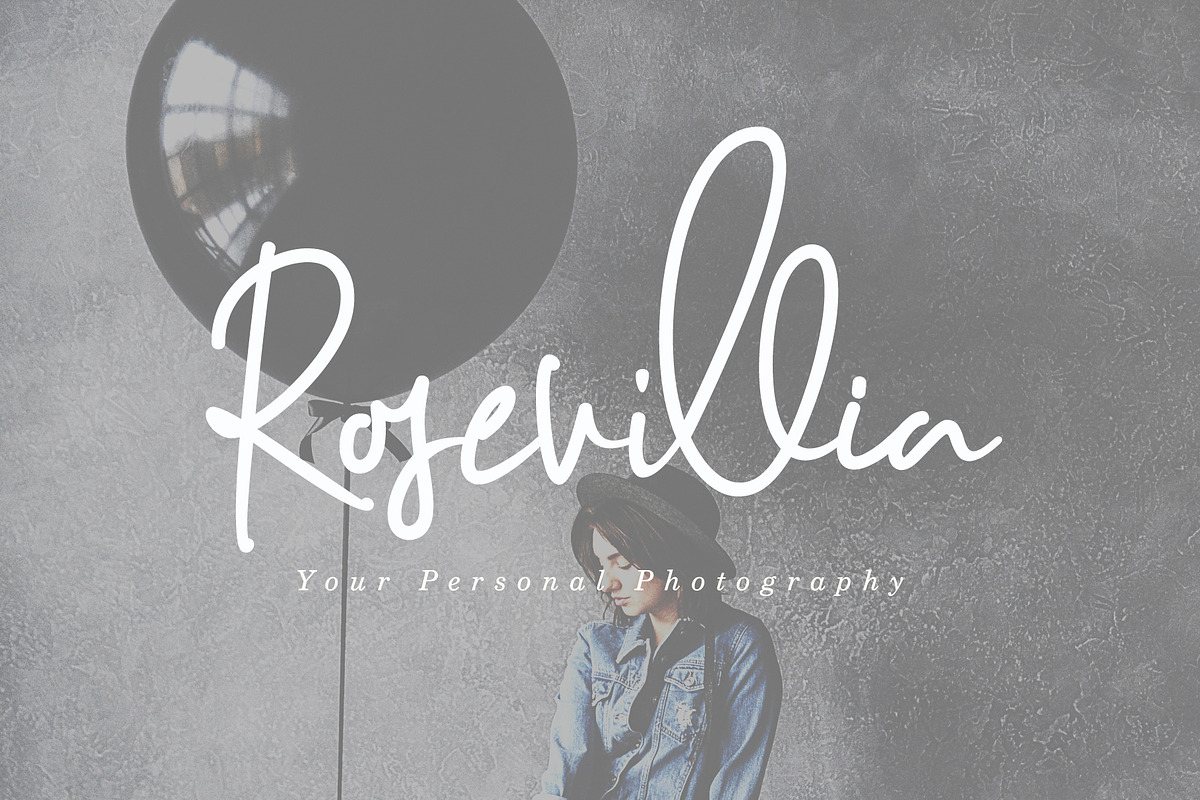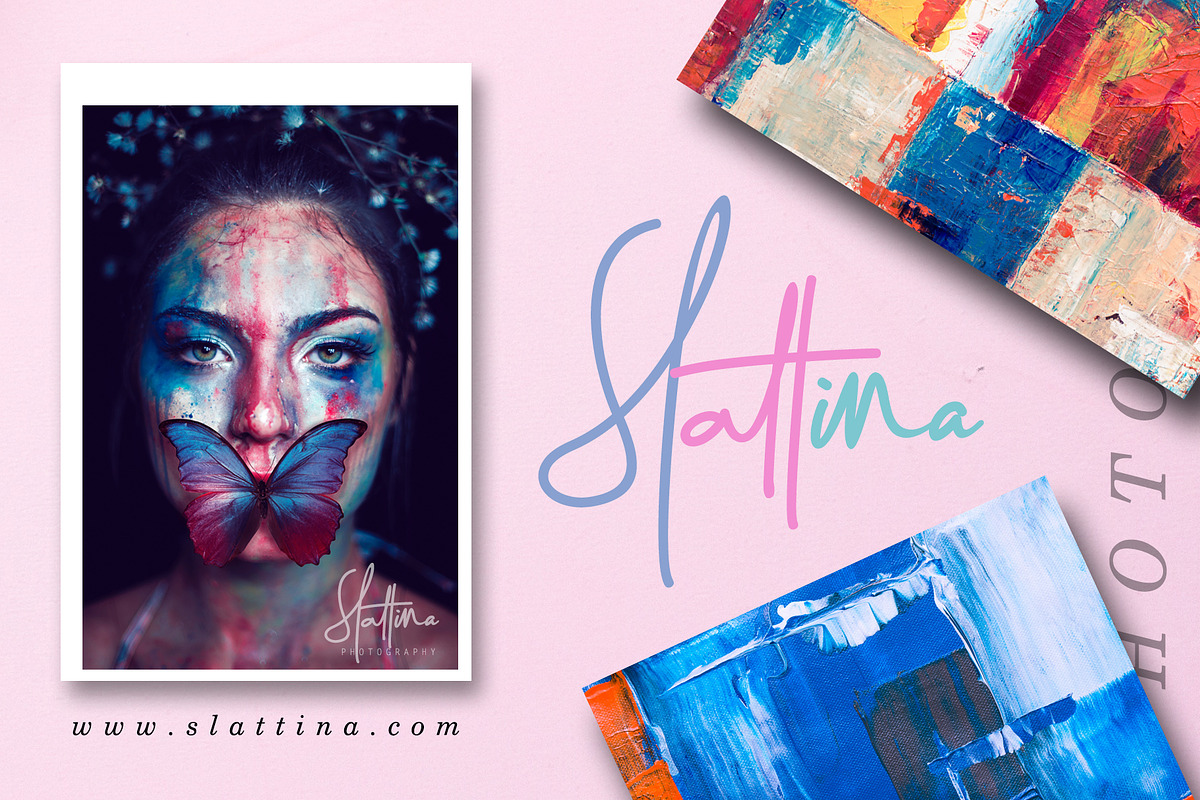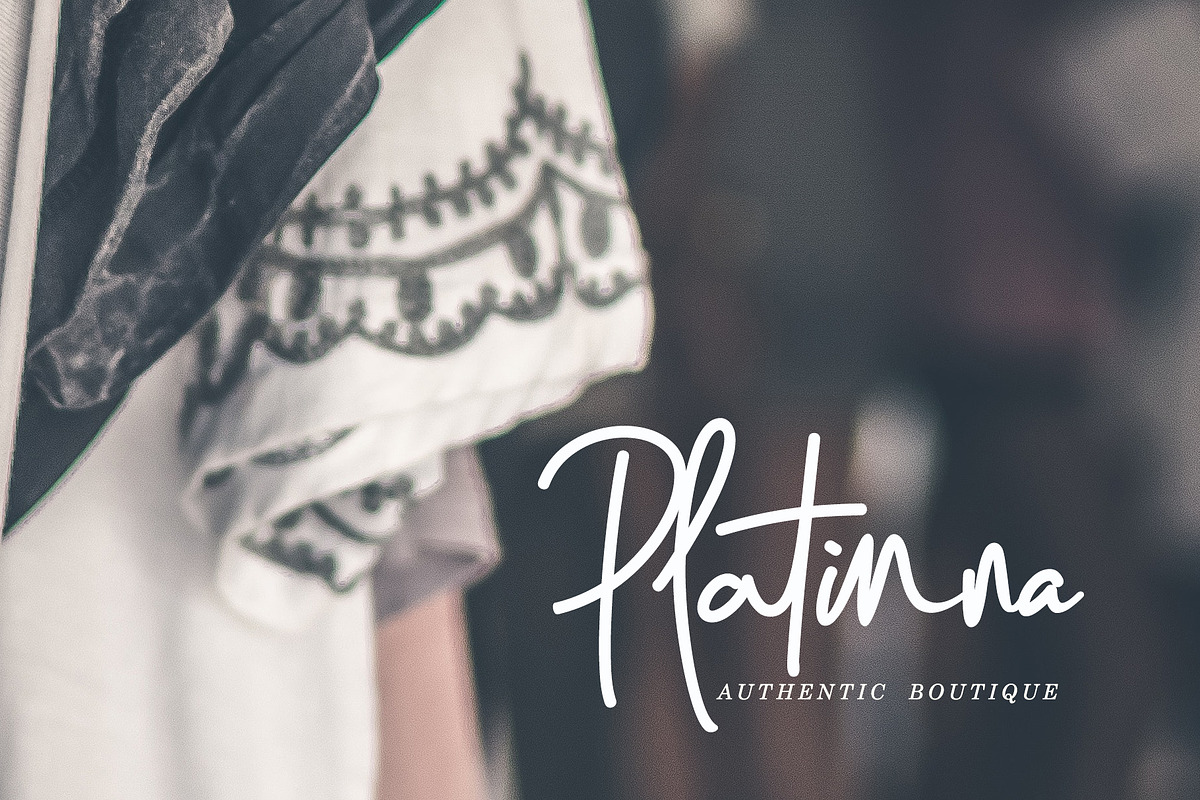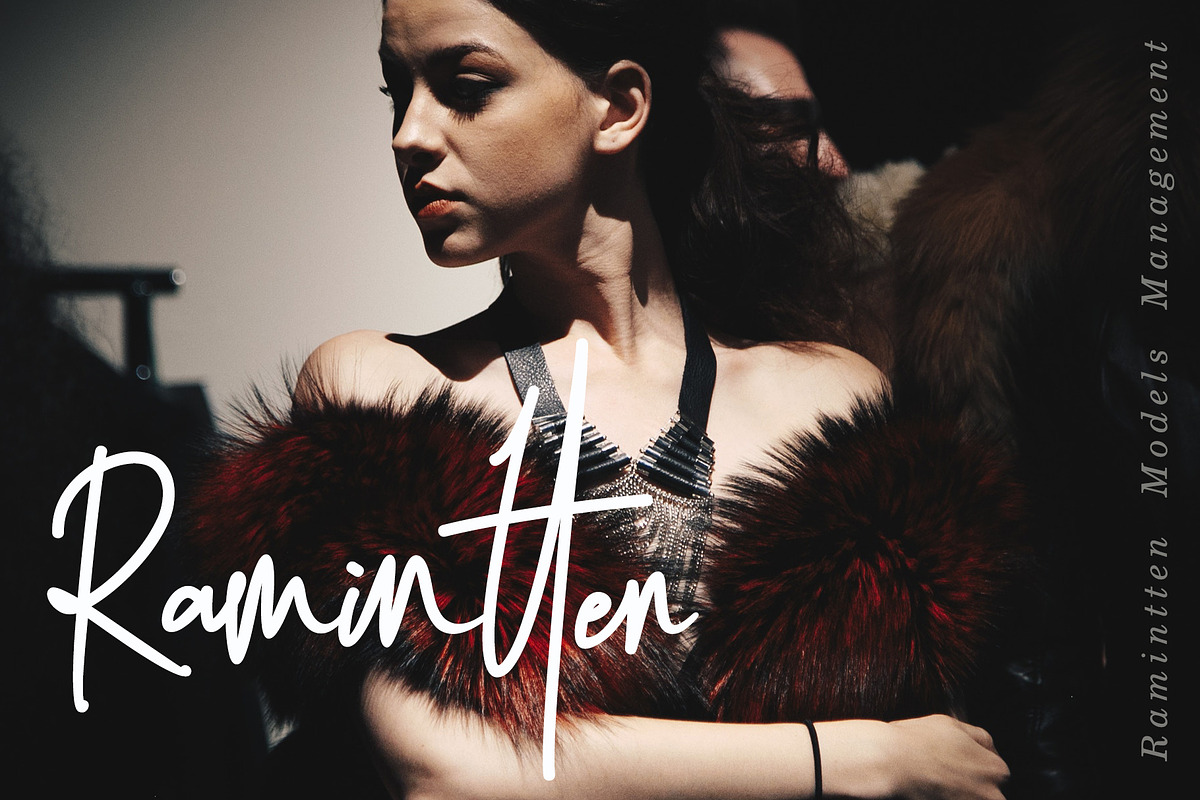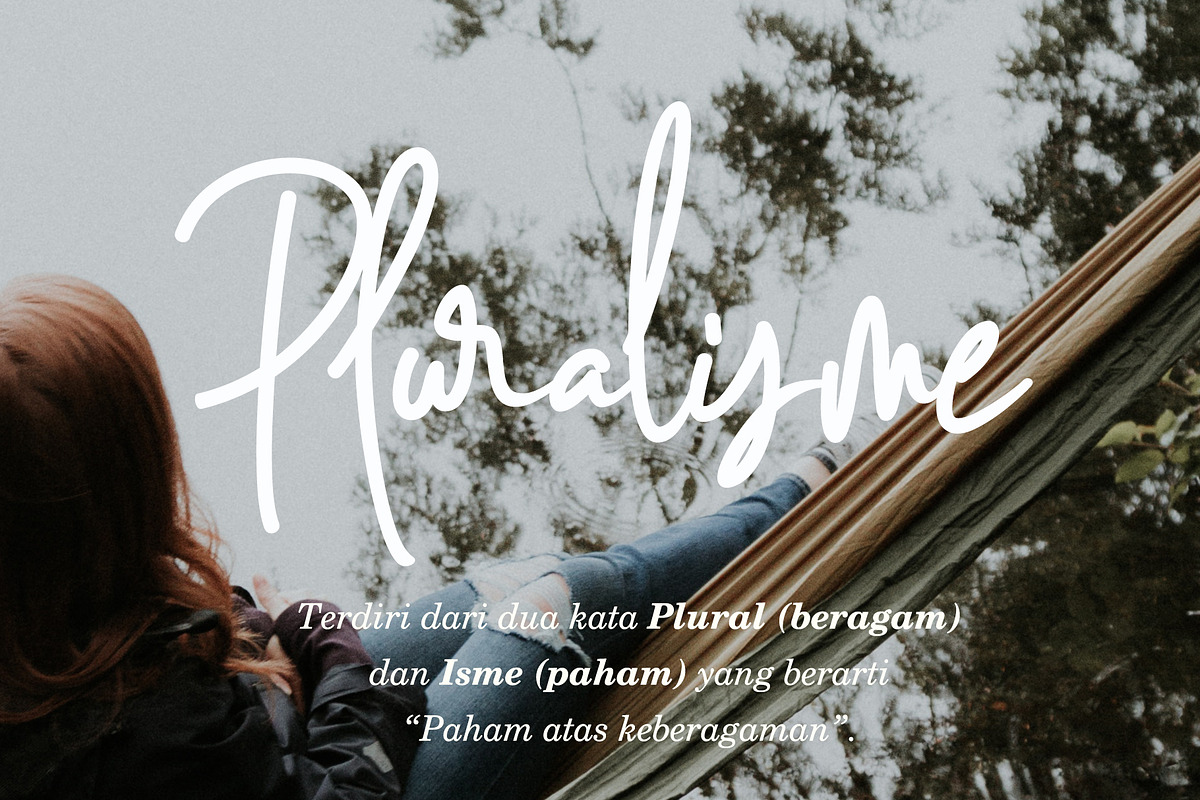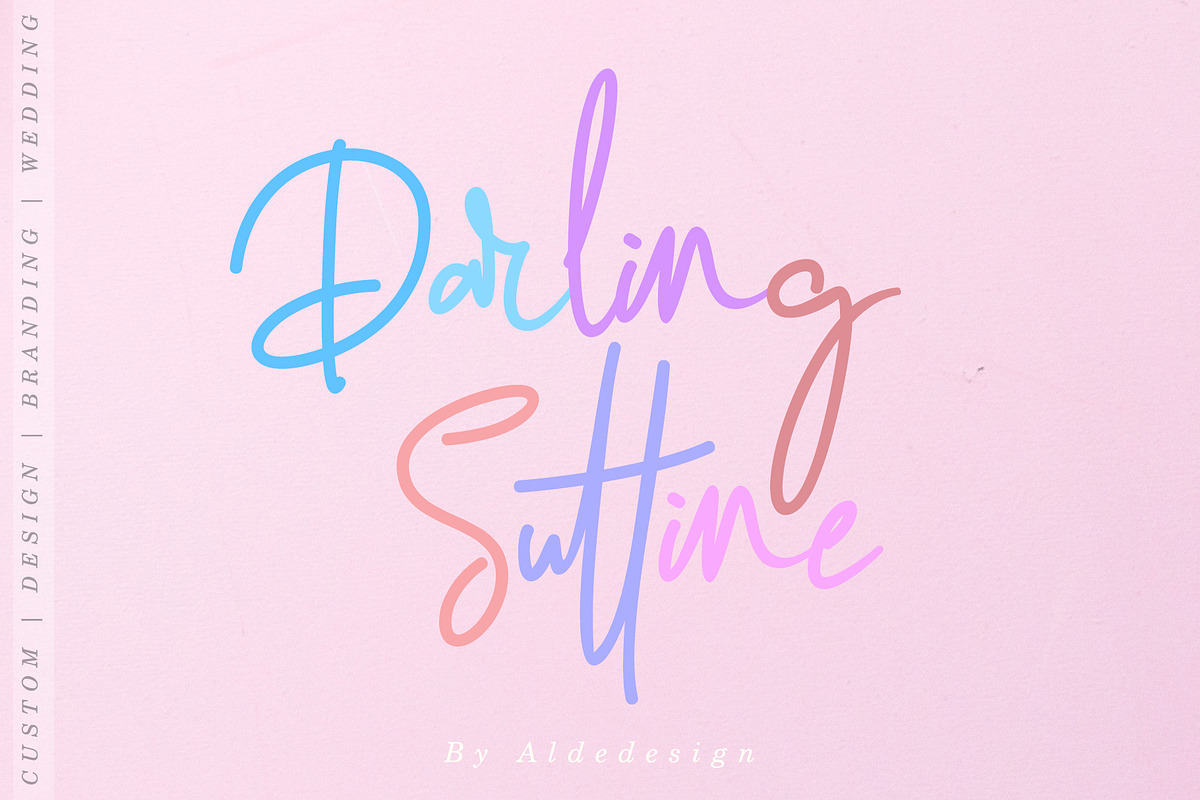
Darling Suttine | Signature Font
Darling Suttine is a font with awesome and classy taste, comes with natural touch, so much ligatures. We keep this font looks classy, readable, elegant, stylish, catchy and absolutly easy to use.
Darling Suttine is the great choice for watermark on branding, design, wedding, photography, signature, logo design, album cover, business card, quotes, and many other design project.
This font is for those who want to show something smooth and modern. You may use this font if you want to attract modern buyers. The font design seems to show that you have a passion in the business and give your love to the products and services you are offered to customers. Because it is an eye-catching signature font, you can use it for a variety of purposes including wedding invitation, signature, logo, branding, poster, and many more.
Stylish handwritten style
So much Special Ligatures
Darling Suttine | Signature Font by Aldedesign fits naturally into Branding, posters, packaging, typography.